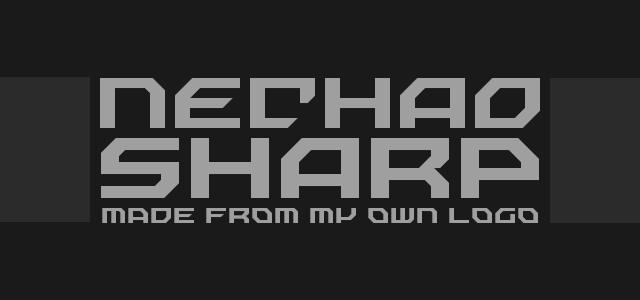
Preview and download Nechao Sharp Font. Created by Jayvee Enaguas in Techno Square styles with 100% Free license.
Created and edited By: Jayvee D. Enaguas (Grand Chaos) Licensed By: Creative Commons (CC-BY-SA 3.0) Description: Nechao Sharp is a post modern / square font style and it was made from my own logo or avatar since February this year. © Grand Chaos Productions. Some Rights Reserved. |